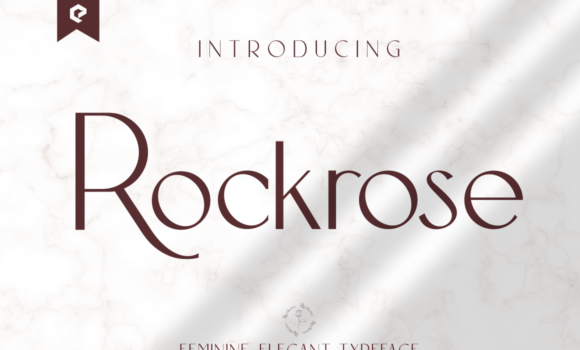
rockrose
Rockrose Font – Free Download Introduction to Rockrose Font Rockrose is a stylish display font. 📸 Preview Gallery 6 images 📌 Product Name Rockrose Font 👤 Author eotype 📂 Category Explore ⬇️ Download Rockrose Font FREE Free Download • Instant